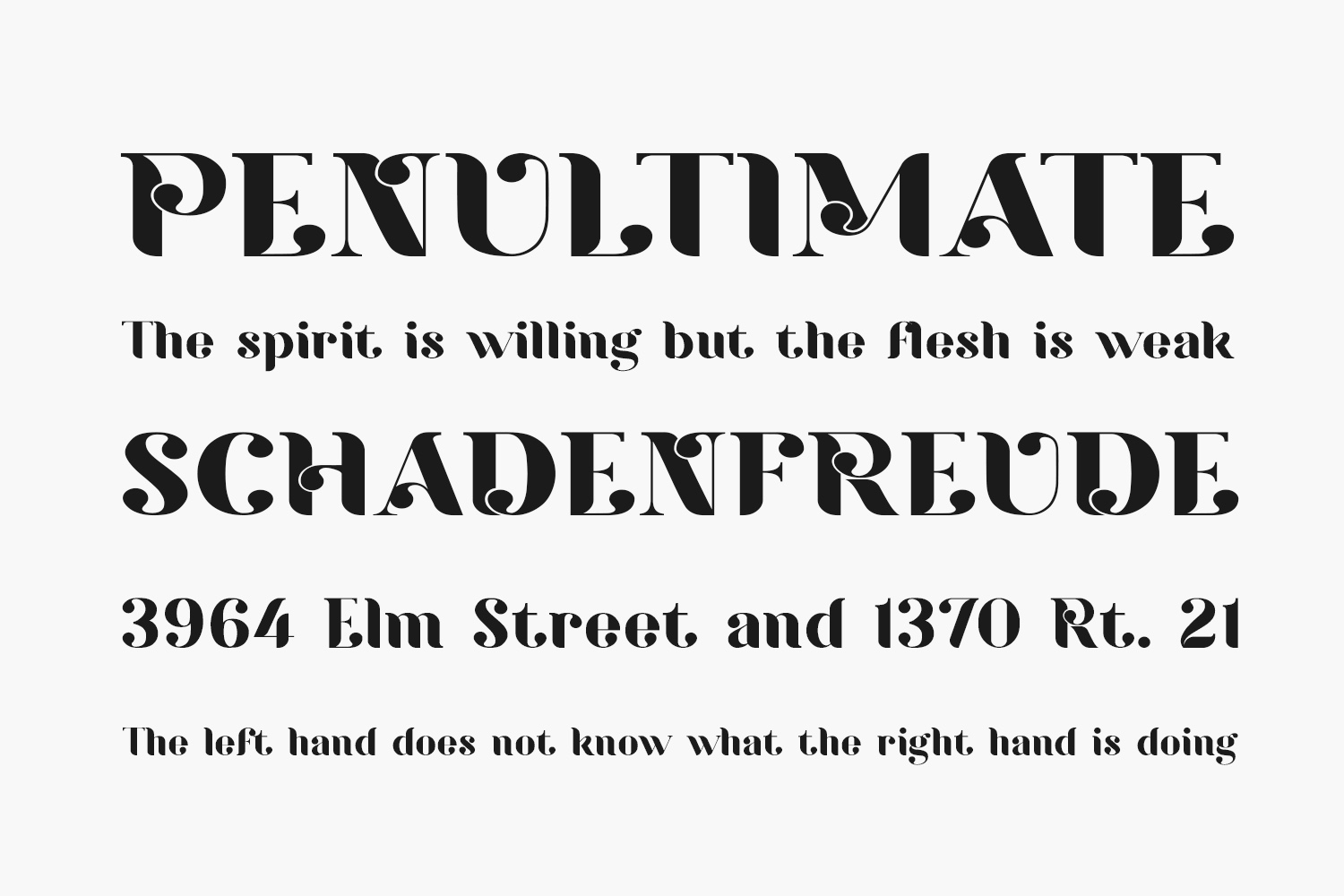
Arka Free Font is a bold and striking display font that commands attention. Its strong, angular lines and exaggerated serifs give a sense of power and drama to any project. Whether you’re creating a powerful poster or adding a touch of excitement to your designs, this font is sure to make a statement and leave a lasting impact.